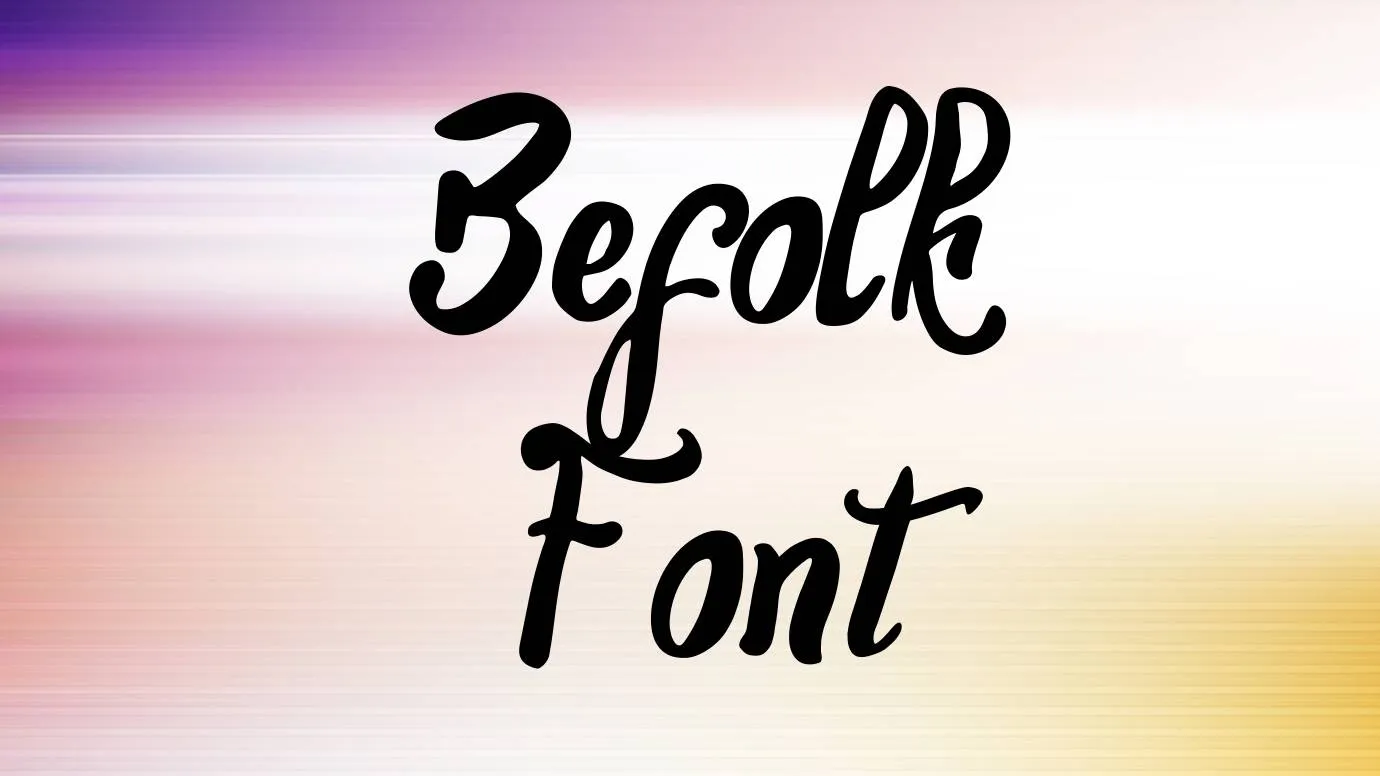
Befolk Font Family is a basic script handwritten font that has a sweet and attractive look. This font family was established by Hendra Dirtyline. This typeface falls in the category of the script family of fonts.
Befolk Font
NameBefolk Font
DesignerHendra Dirtyline